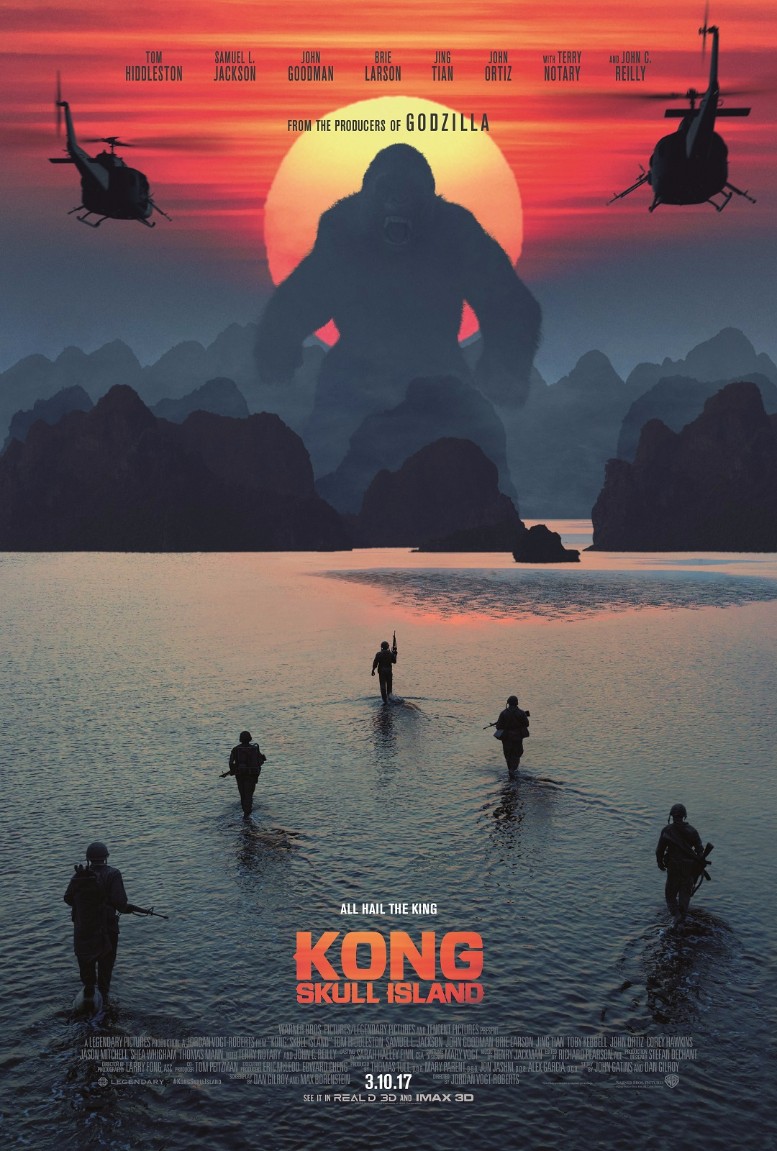
Kong Skull Island Font
AdventureKong: Skull Island is a 2017 American monster film directed by Jordan Vogt-Roberts. It is a reboot of the King Kong franchise as well as the 11th film in the King Kong franchise. A group of Vietnam War soldiers and scientists embark on an expedition to uncharted Skull Island, which is home to a giant ape known as Kong.
The film's title, featuring an unconventional design for the letters "O" and "G," suggests inspiration from either Forza Black by Hoefler & Co or a cost-effective alternative, Linotpye's Eurostile Bold.